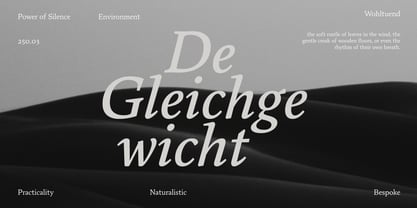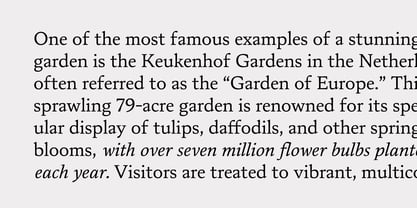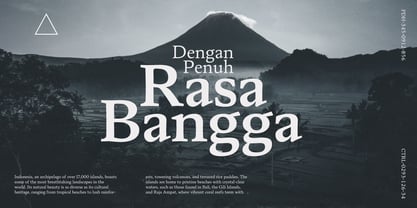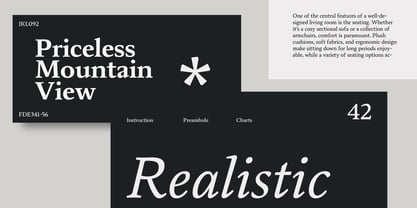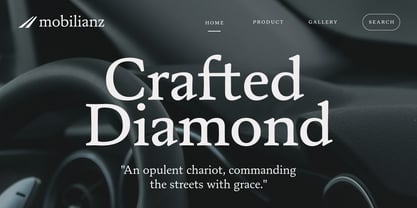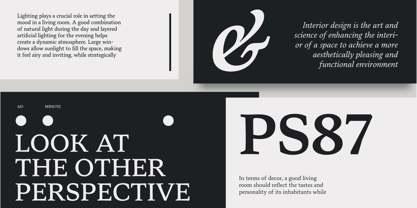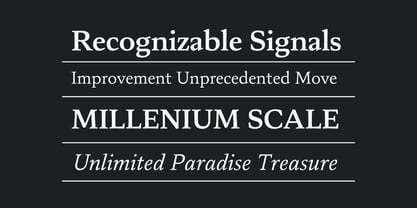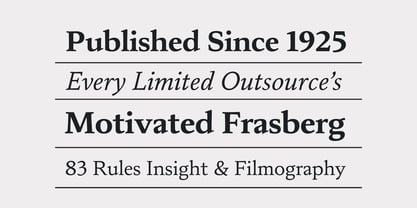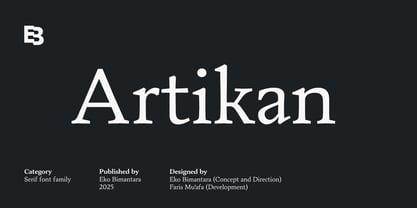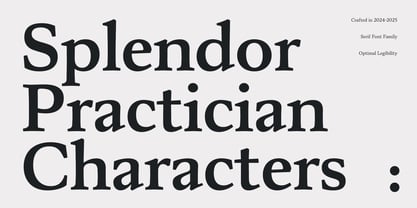
Artikan
by Eko Bimantara
The Artikan Font Family was designed by Eko Bimantara, Faris Muafa and published by Eko Bimantara. Artikan contains 14 styles.
Artikan is a serif font family whose name is derived from the Indonesian word “artikan”, meaning “to interpret”—a fitting concept for a font that excels in conveying clarity and nuance through extended reading experiences. Rooted in the traditions of oldstyle and transitional serif structures, Artikan harmoniously blends classical elegance with legibility. Its letterforms are defined by a humanist stem construction that exhibits medium contrast with uneven stem widths and subtle cupped serif that bring a warm and organic feel. Artikan enhance personality and readability across long passages. Designed with a clear emphasis on immersive text, Artikan is optimized for book typesetting, editorial layouts, websites, and various other design applications that require extended, comfortable reading. It is a typeface that both interprets and invites interpretation—balancing tradition, personality, and readability in a timeless serif form.
Eko Bimantara is a type designer from Indonesia. Always has an intention to creating fonts that not only look great but also perform across a wide range of mediums and also across wide range of theme. The goal is to give designers the tools to make their projects that speaks a lot with various expression. Eko Bimantara’s fonts are featured in everything from corporate identities to street art posters, and have numerous ideas and concept ready to expand for fresh fonts for years further.